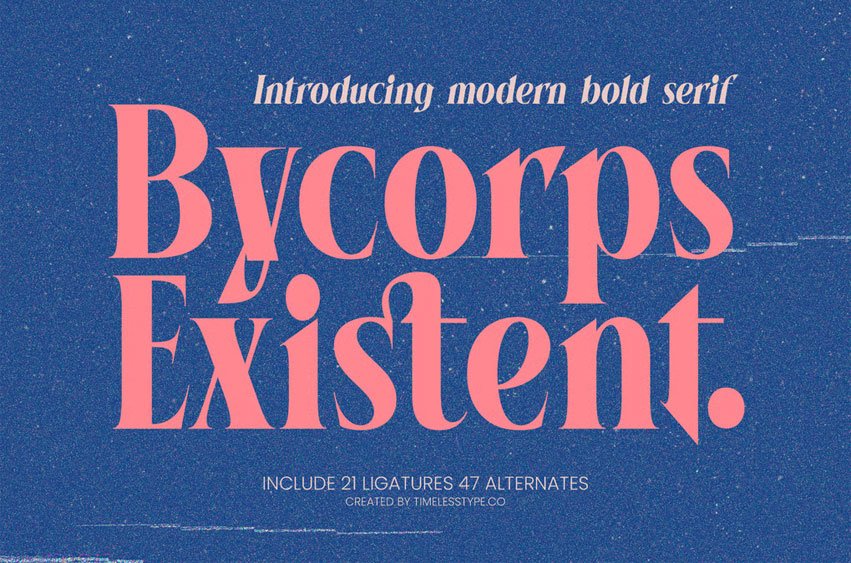
Bycorps Existent Font is a modern bold serif display font with sharp curves, confident structure, and a fashionable editorial presence. Blending contemporary elegance with striking typographic flair, this typeface is perfect for magazine headlines, luxury branding, packaging, posters, social media graphics, and stylish logo design. Its bold letterforms and expressive shapes make every composition feel refined, powerful, and visually captivating.
Featuring 21 ligatures and 47 alternates, Bycorps Existent offers extensive creative flexibility for crafting custom wordmarks, dramatic titles, decorative layouts, and artistic typographic arrangements. The combination of bold strokes, sculpted serifs, and chic stylistic options makes it an ideal choice for projects that demand sophistication, attitude, and a premium modern aesthetic.